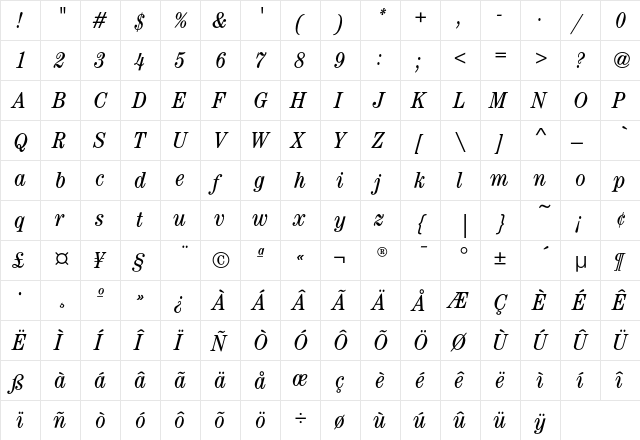
CenturyEF-BookCondItalic Regular Font Preview
CenturyEF-BookCondItalic Regular
CenturyEF-BookCondItalic Regular Font Details
Design Context for CenturyEF-BookCondItalic Typeface
CenturyEF-BookCondItalic offers clean, dependable letterforms without strong stylistic allegiance, making it a practical choice for designers who need flexibility. The dynamic lean of this cut emphasises speed and emphasis in any layout. The condensed width makes it efficient for tight spaces without sacrificing legibility.